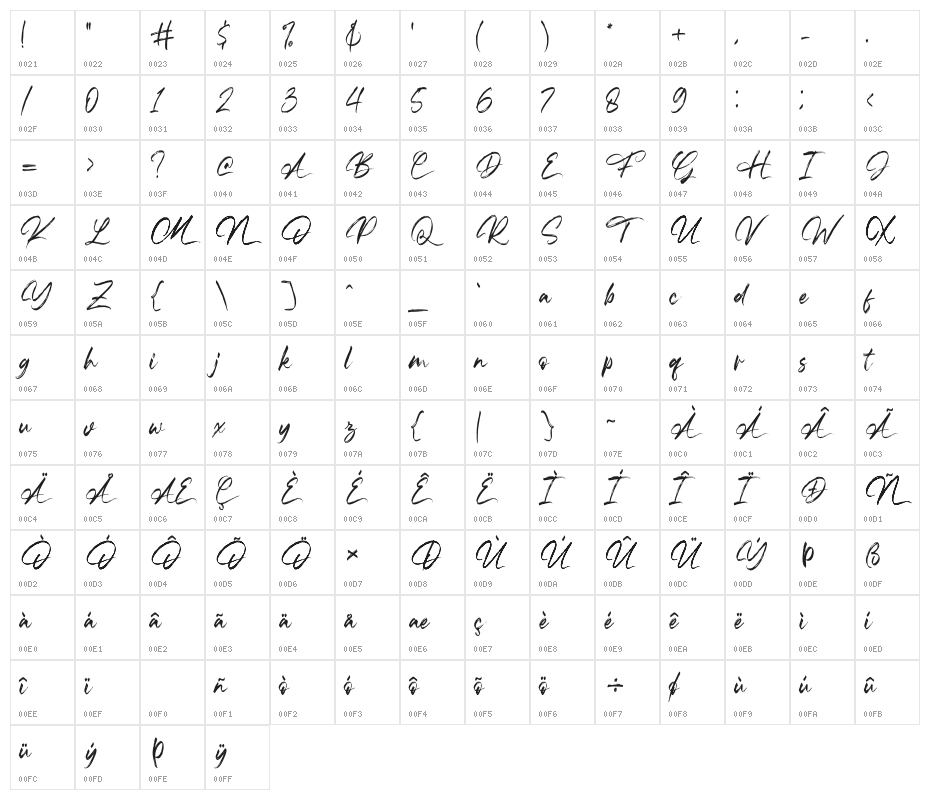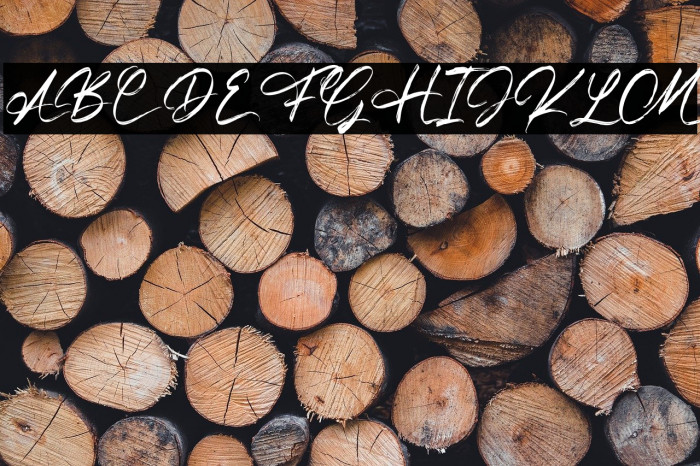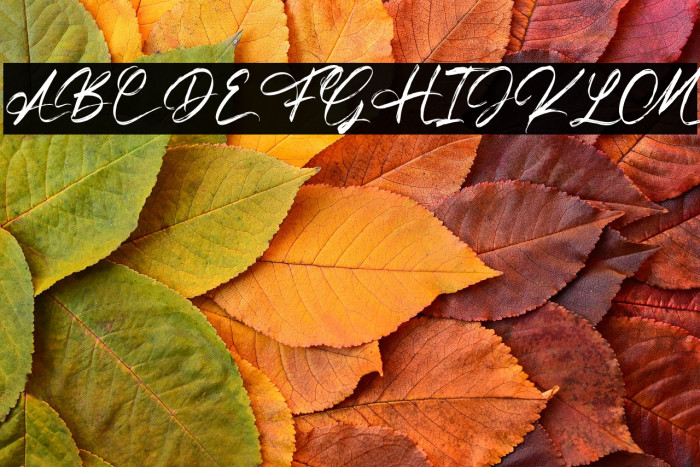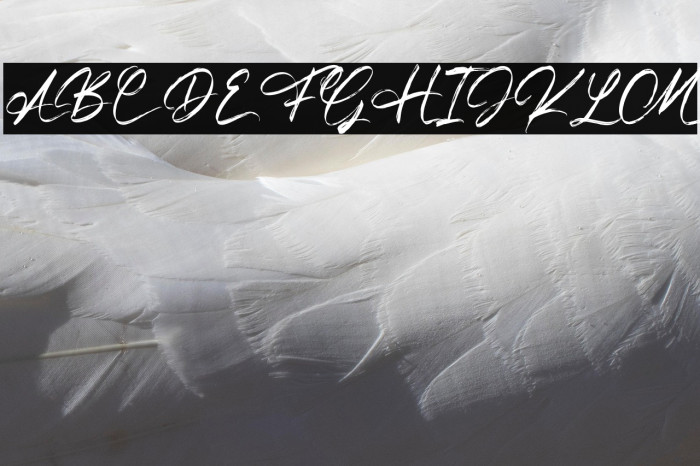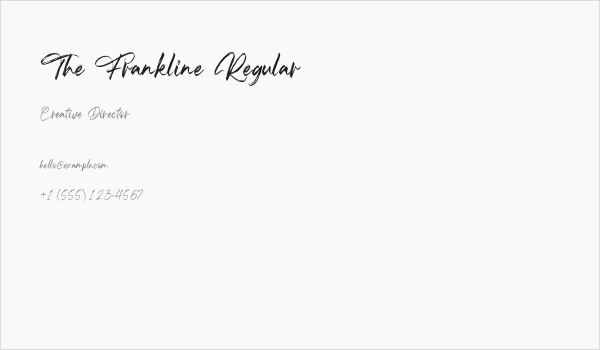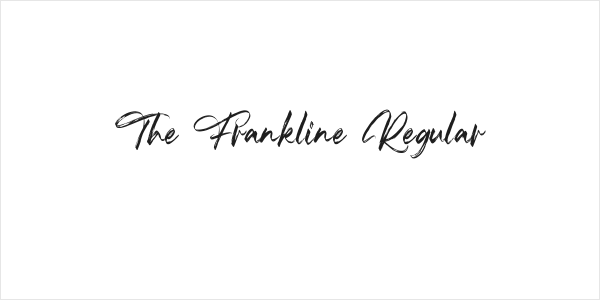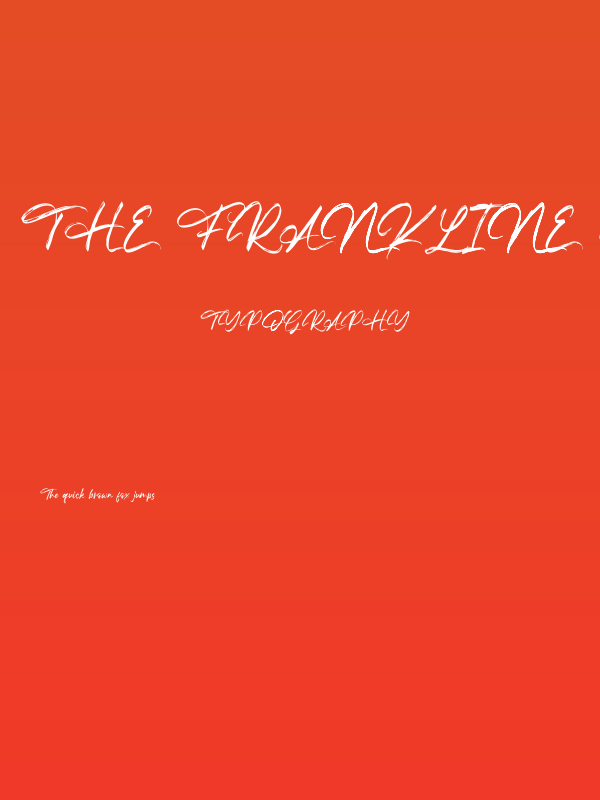
The Frankline Regular Font
The Frankline Regular Description
This font features a dynamic and expressive script style, characterized by fluid, cursive strokes that convey a sense of elegance and movement. The uppercase letters are bold and sweeping, with a distinctive flair that adds personality to each character. The lowercase letters maintain a consistent flow, enhancing readability while retaining the artistic touch. Numbers and special characters are crafted with the same attention to detail, ensuring a cohesive look across all text. The overall design is reminiscent of hand-drawn calligraphy, making it suitable for projects that require a personal and artistic touch.